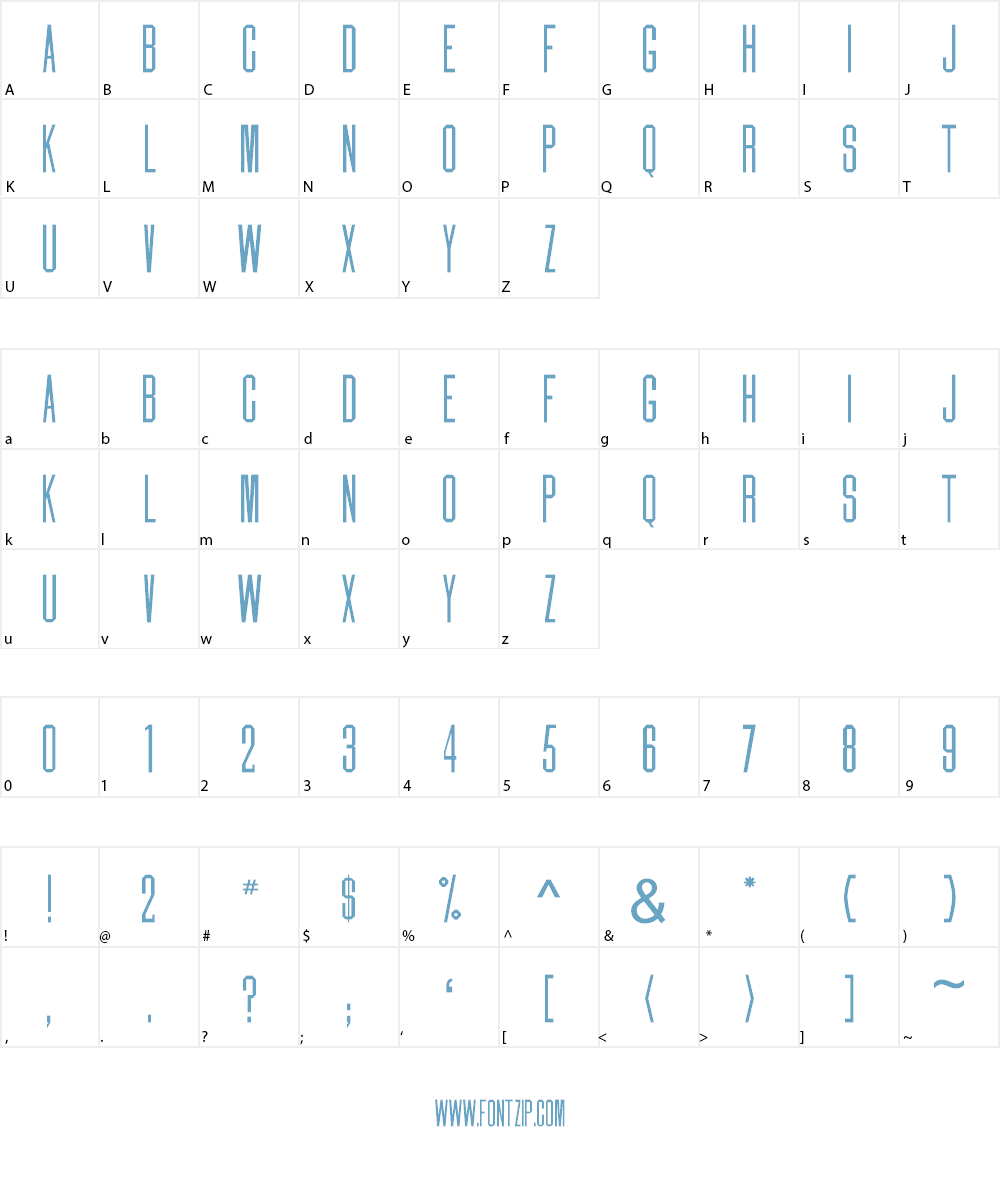
Minot Daily News: 1915 Headline Font
This font is based on the newspaper headline style used on the front page of the Minot Daily News in 1915.
It is a narrow, sans serif, block-style font, similar in some regards to the Athletic Sans font found in the America Online libraries.
This type style comes from an era when newspaper headlines were tall and squeezed together to allow as much information as possible.
It is most effective above 36 points.
It is an all cap font, with basic punctuation.